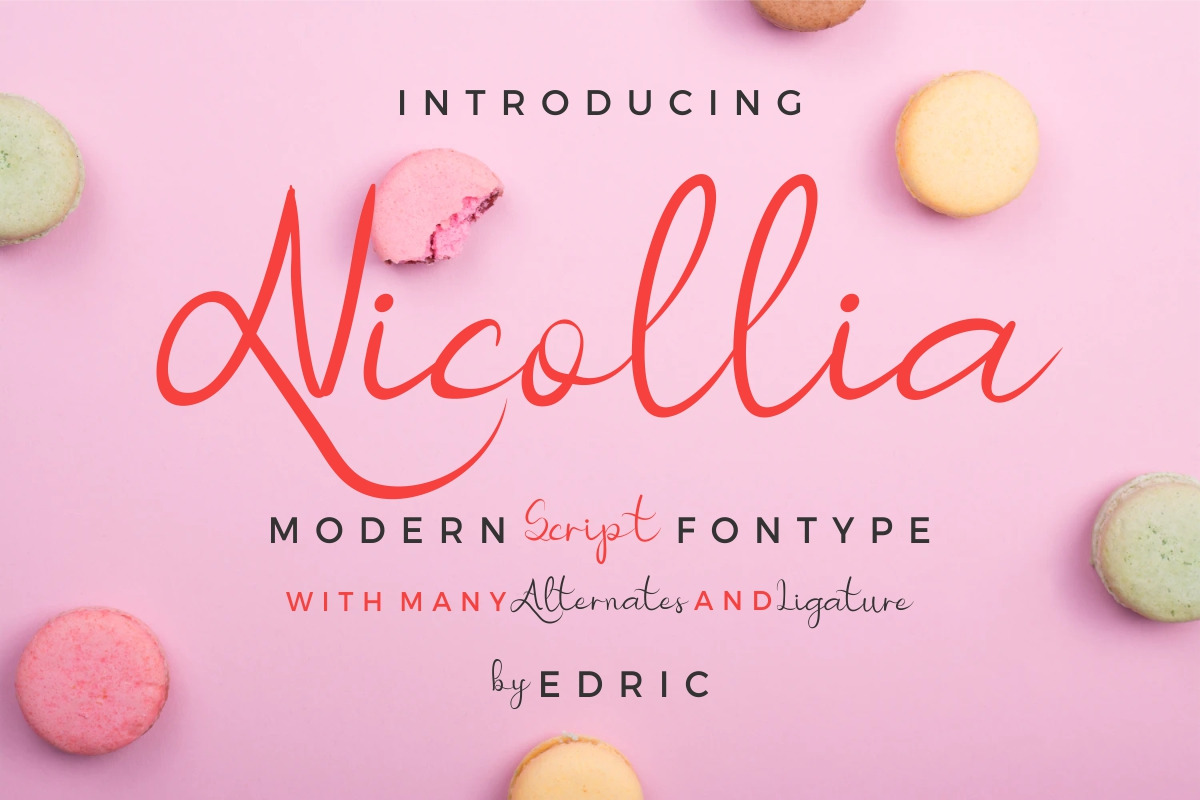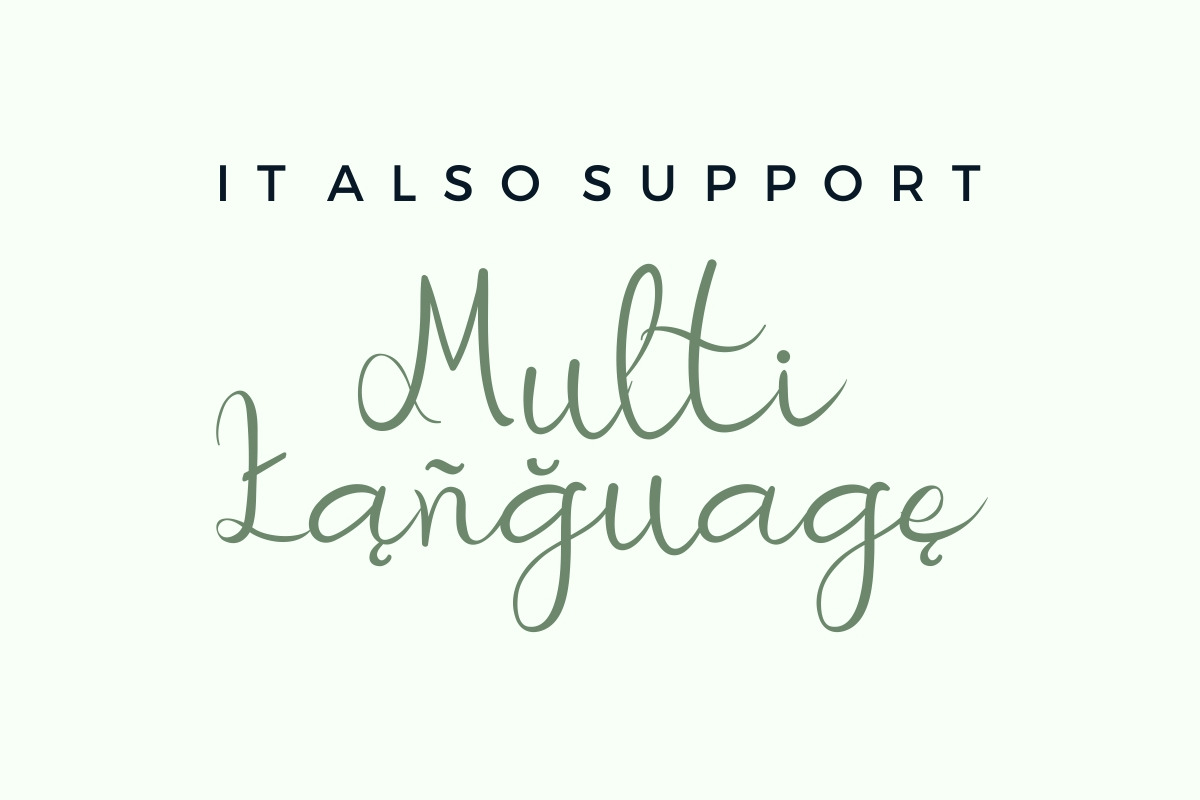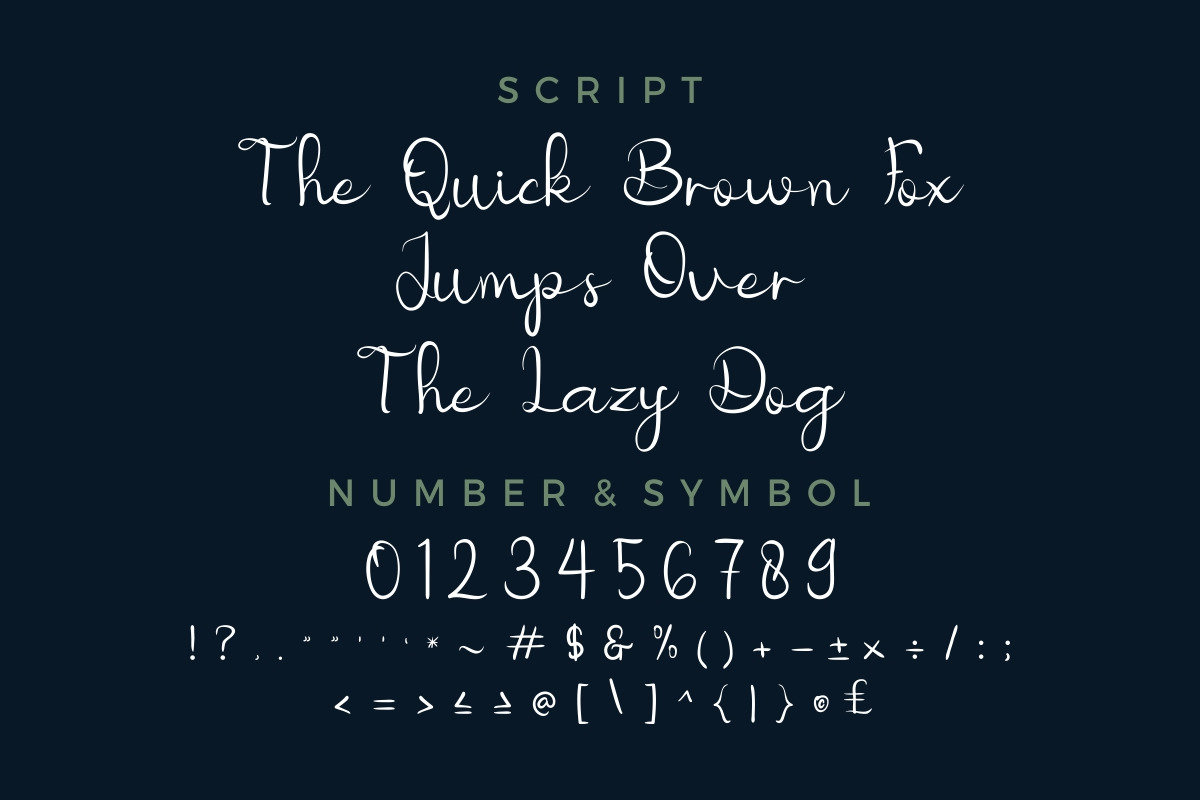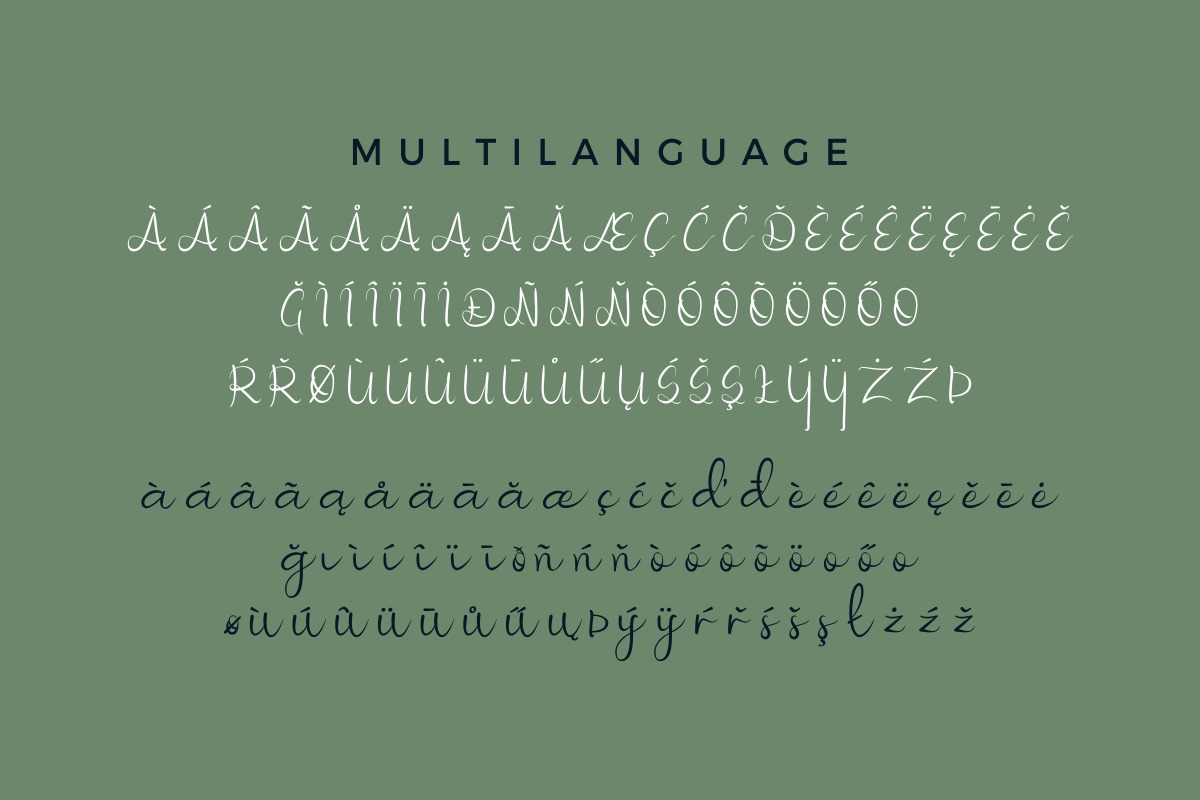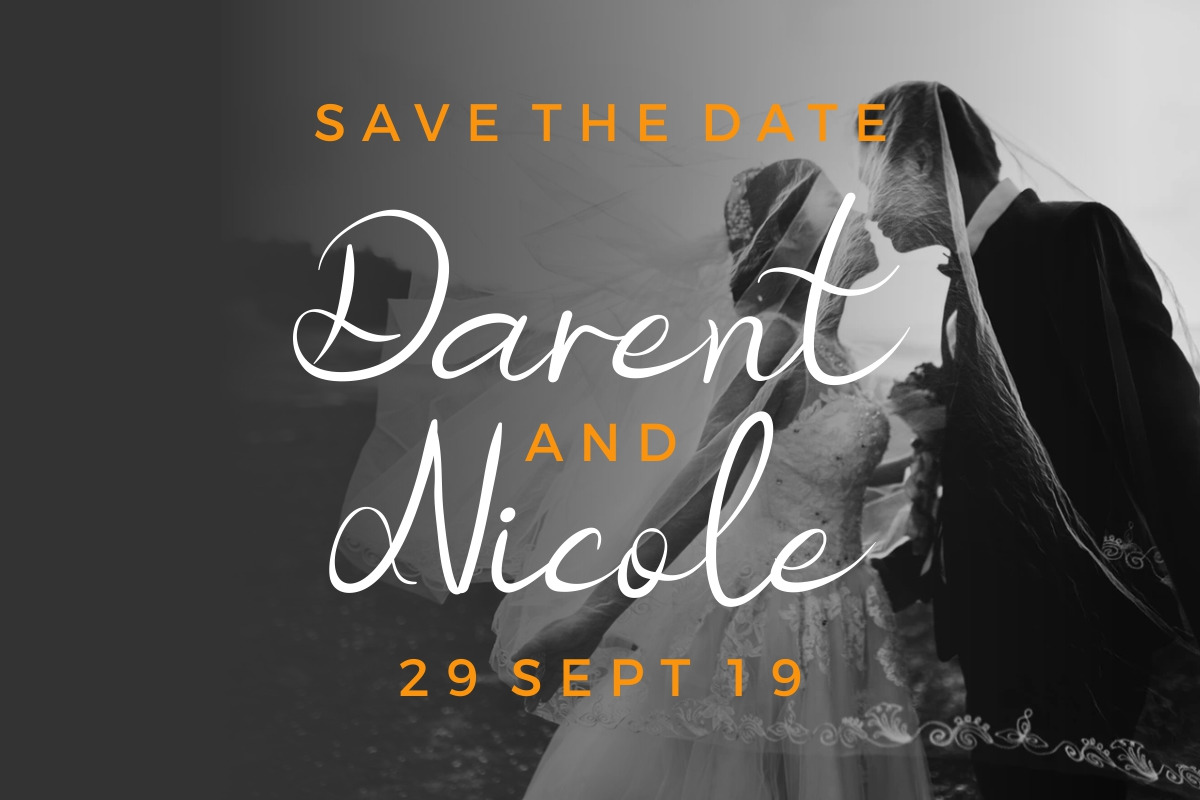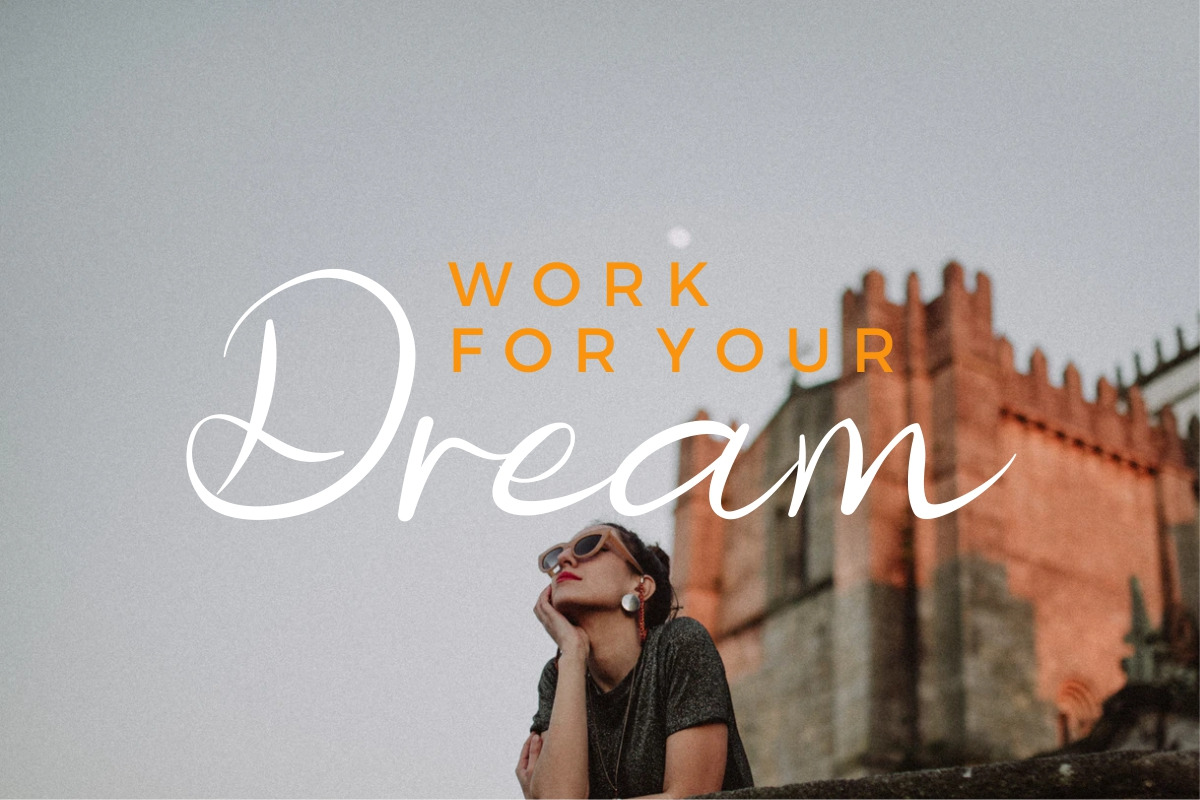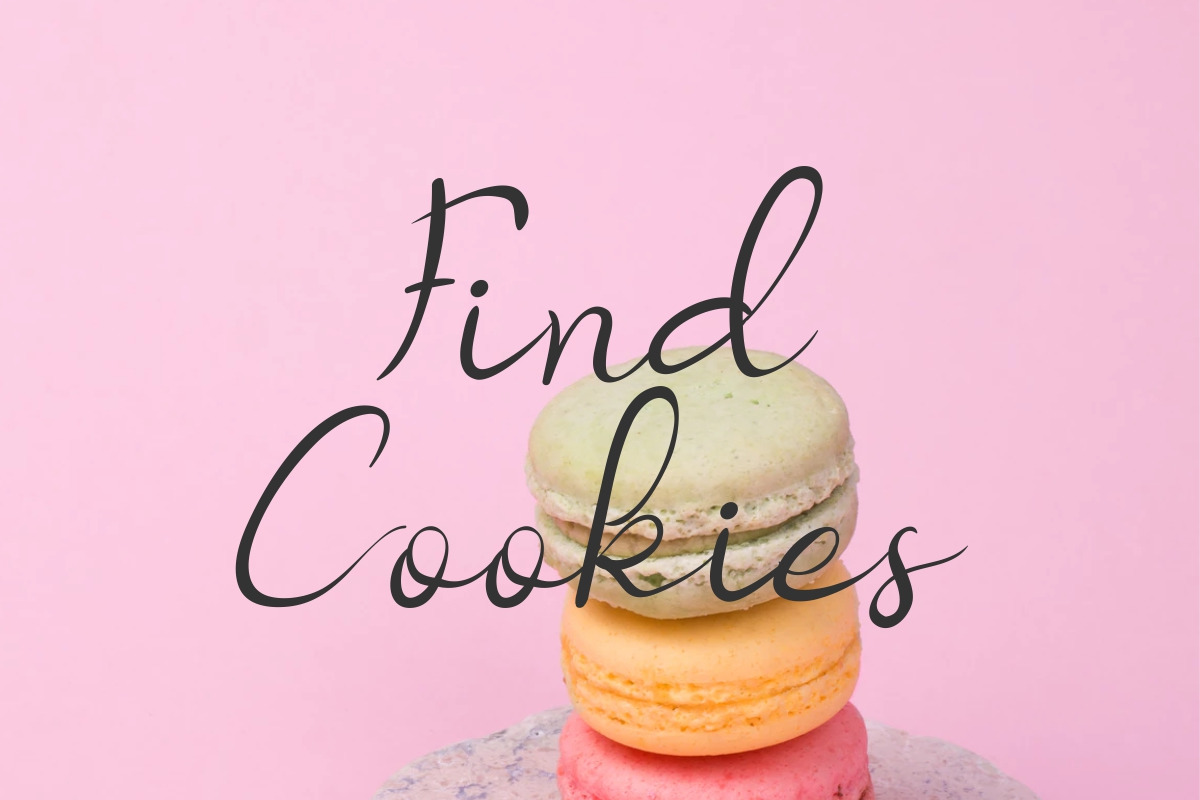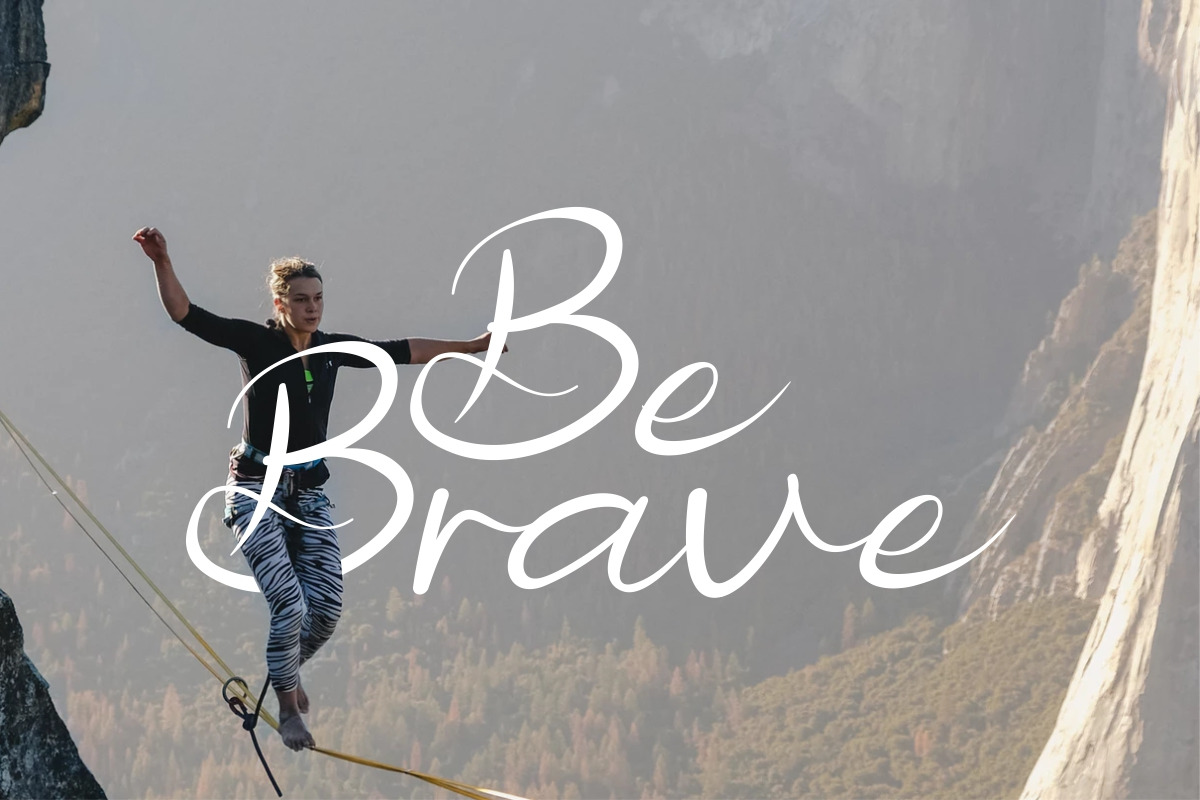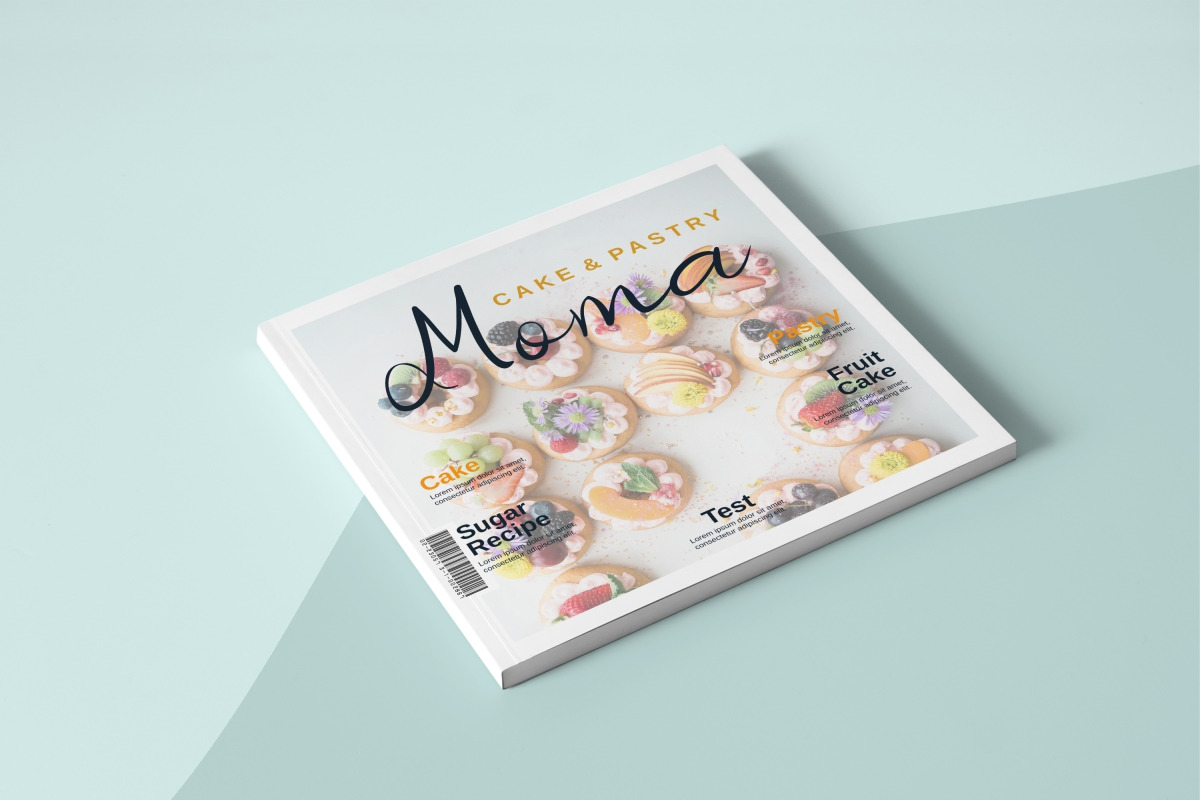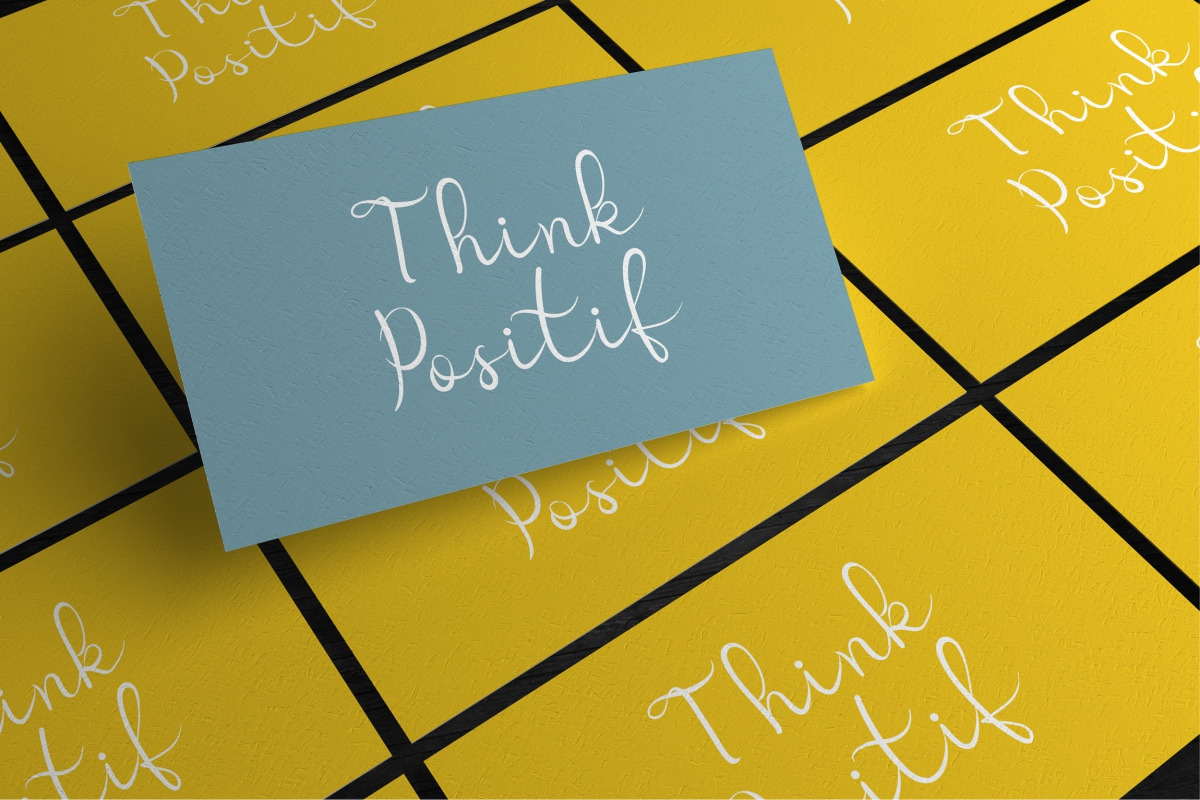
Nicollia Script Font
Hi Everyone! Introducing our newest font : Nicollia ! This is a new modern script handwriting feminine calligraphy style font. It has a fresh, elegant and stylish glyph. You will get : - OTF - TTF - Woff
Two Styles : Regular and Italic. Also Alternatives glyph on each style